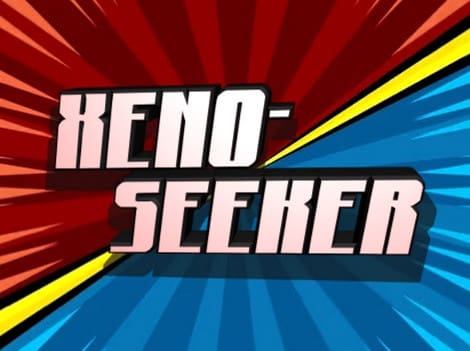
Xeno Seeker Font
Xeno Seeker Font, is a Retro font and was created on Feb 16, 2024. This bundle features strong, confident and powerful typefaces designed to work great with sports logos, club branding, apparel applications, labels and more.